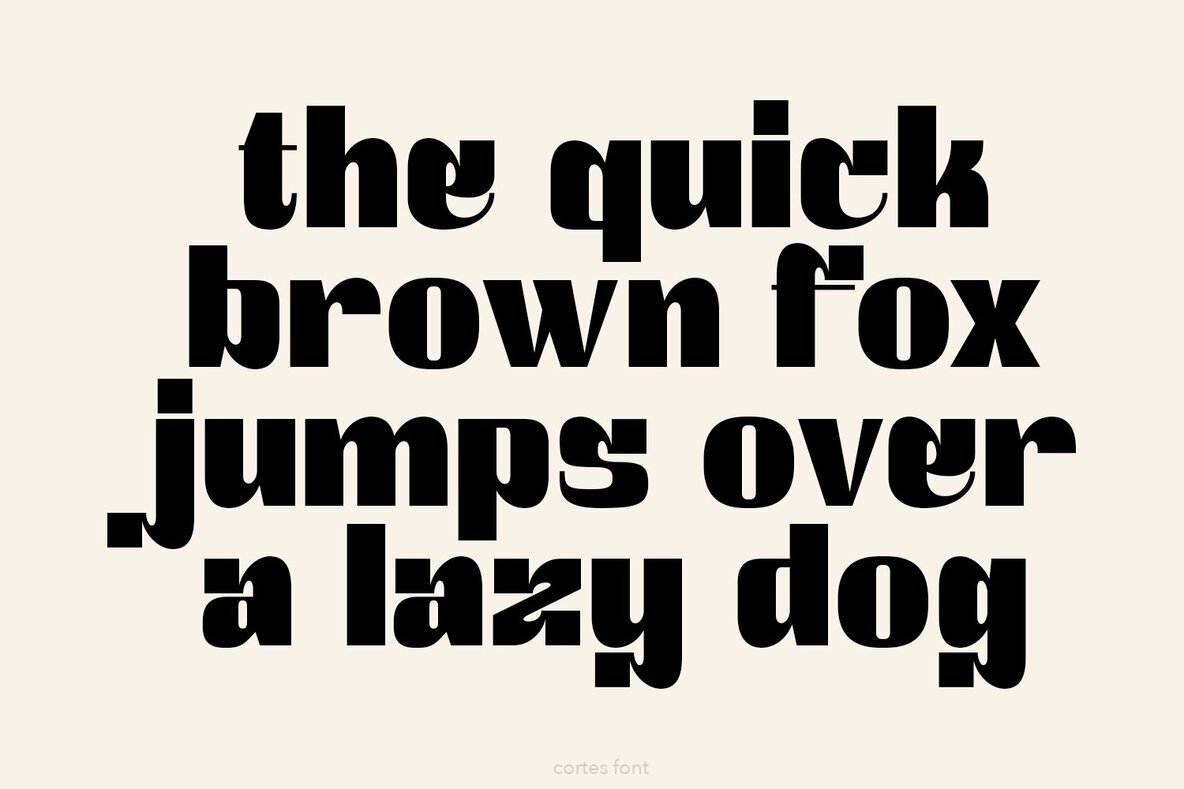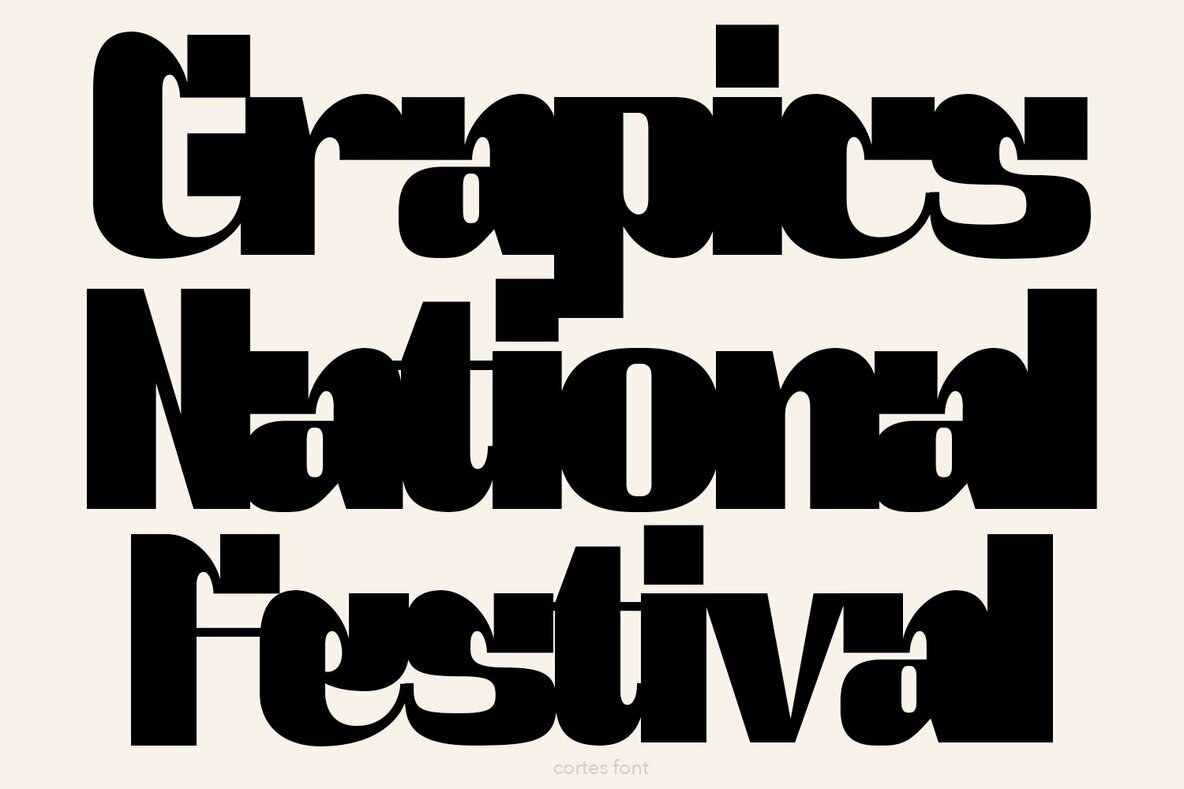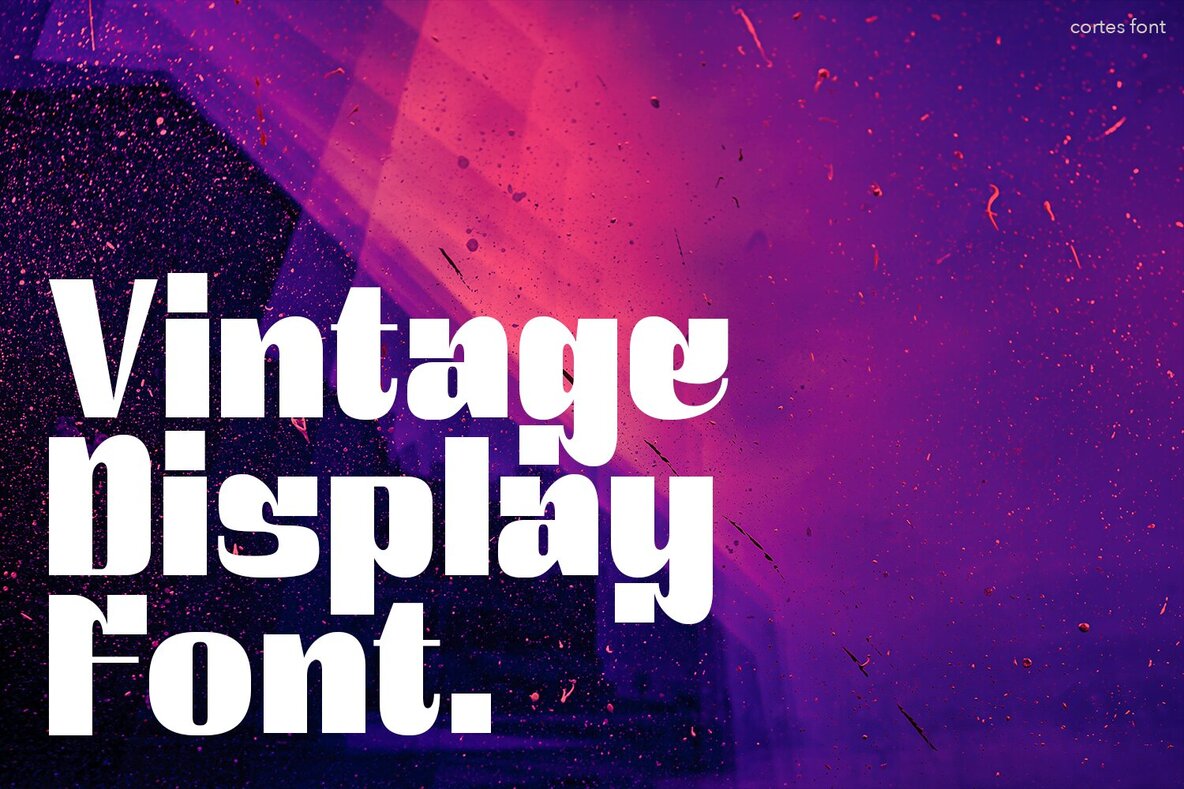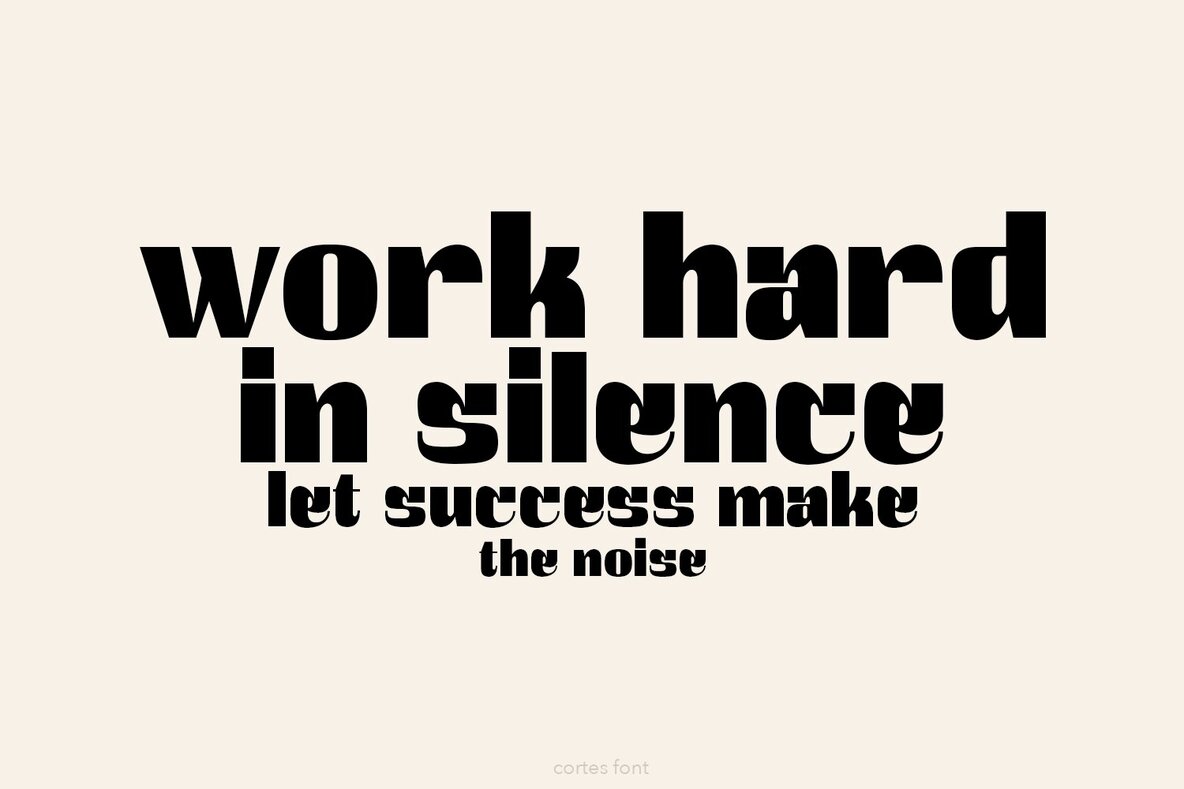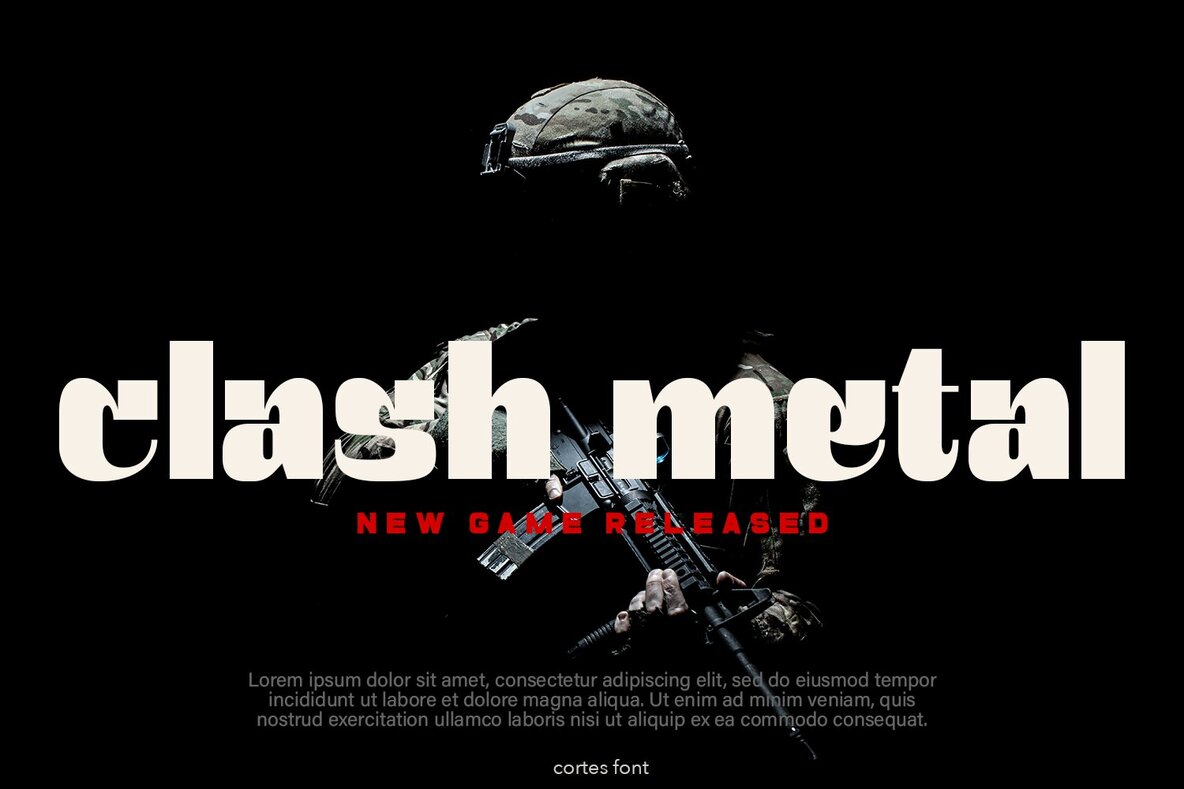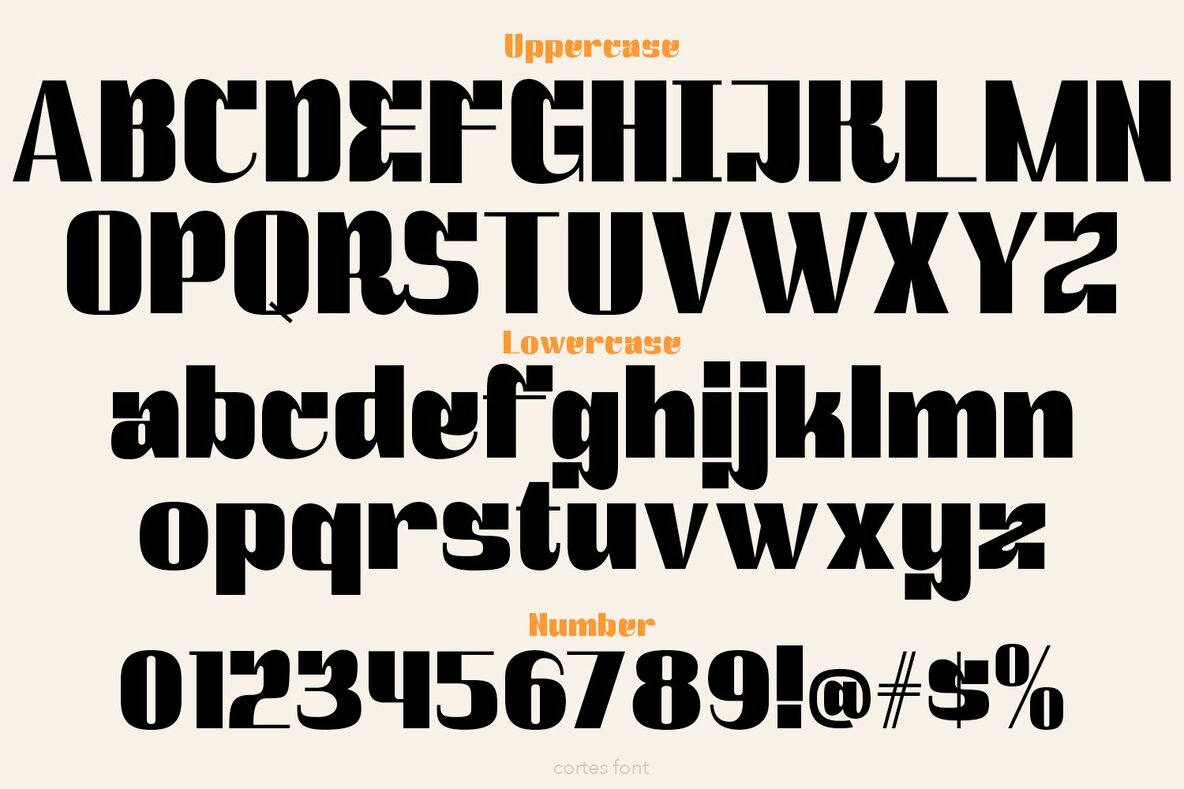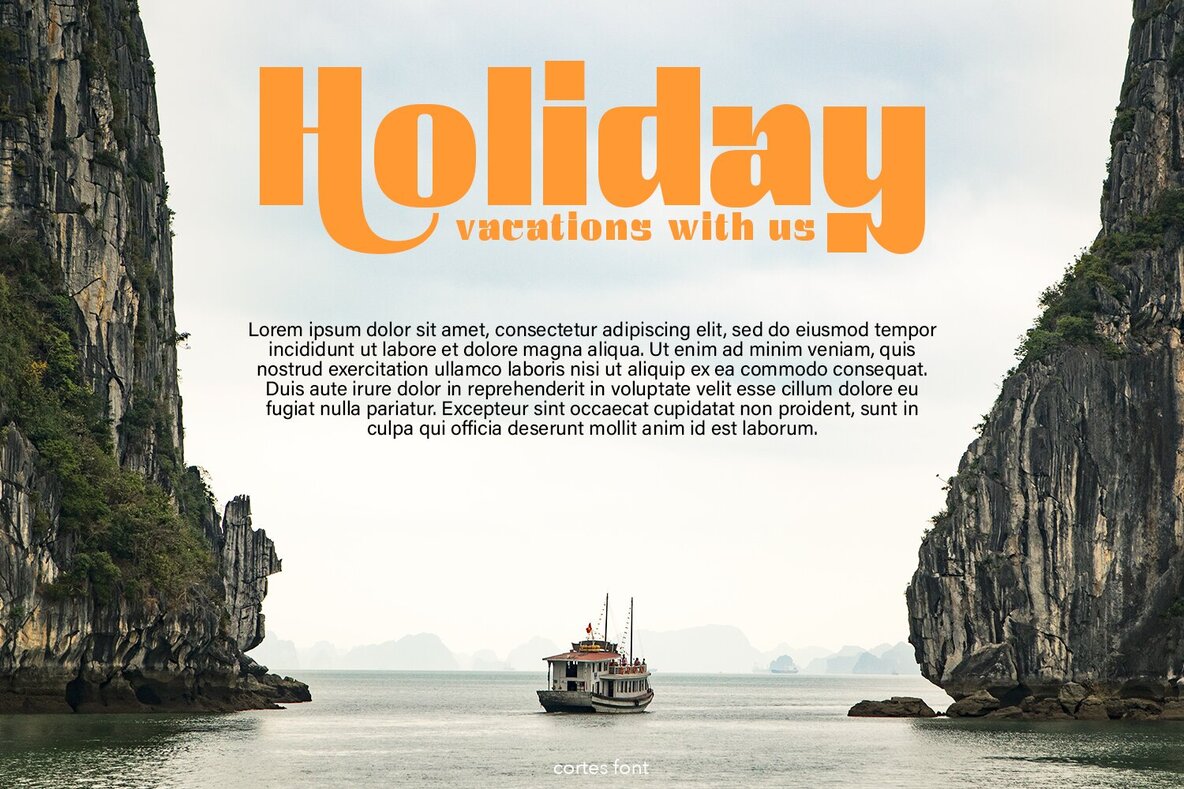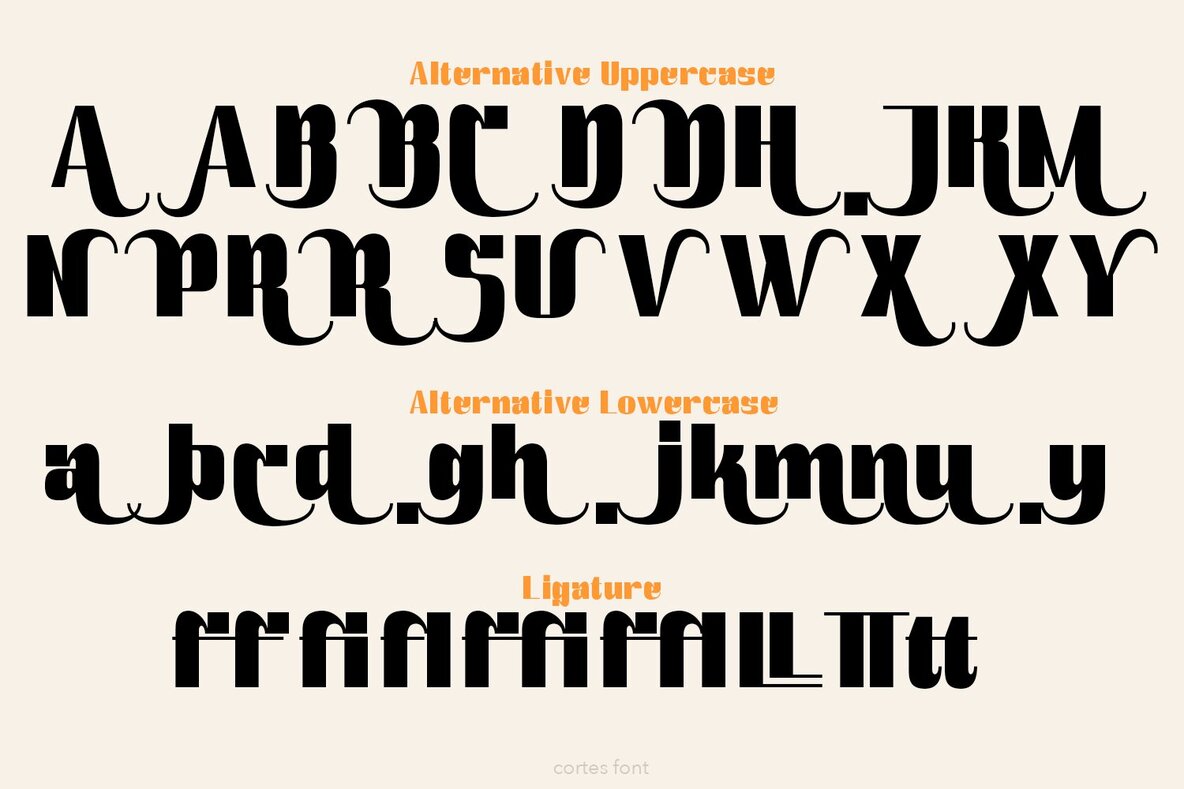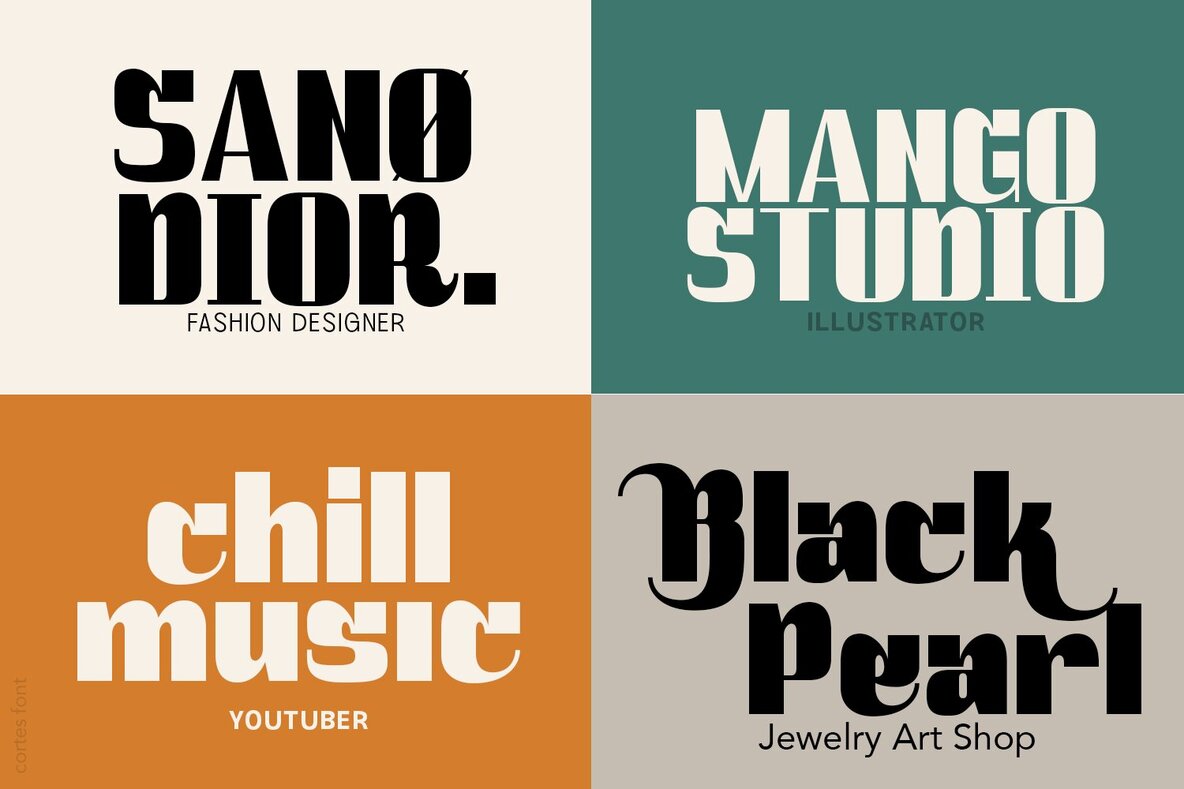
Cortes Font
Cortes Regular
Cortes is a retro display font characterized by its single weight and expressive shapes. Its legibility and abundance of stylish alternate characters make it suitable for a wide range of design projects.Cortes: A Retro Display Font